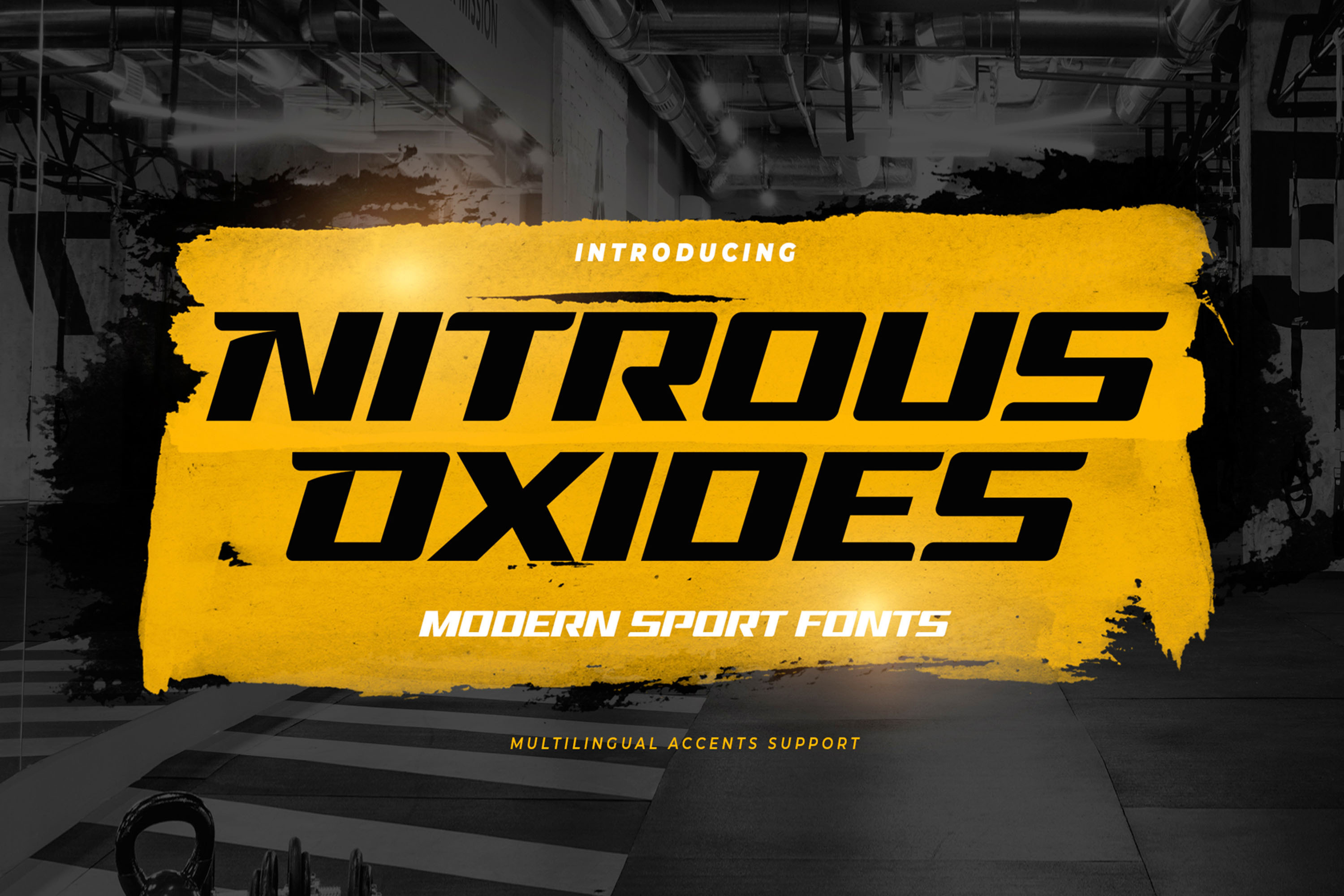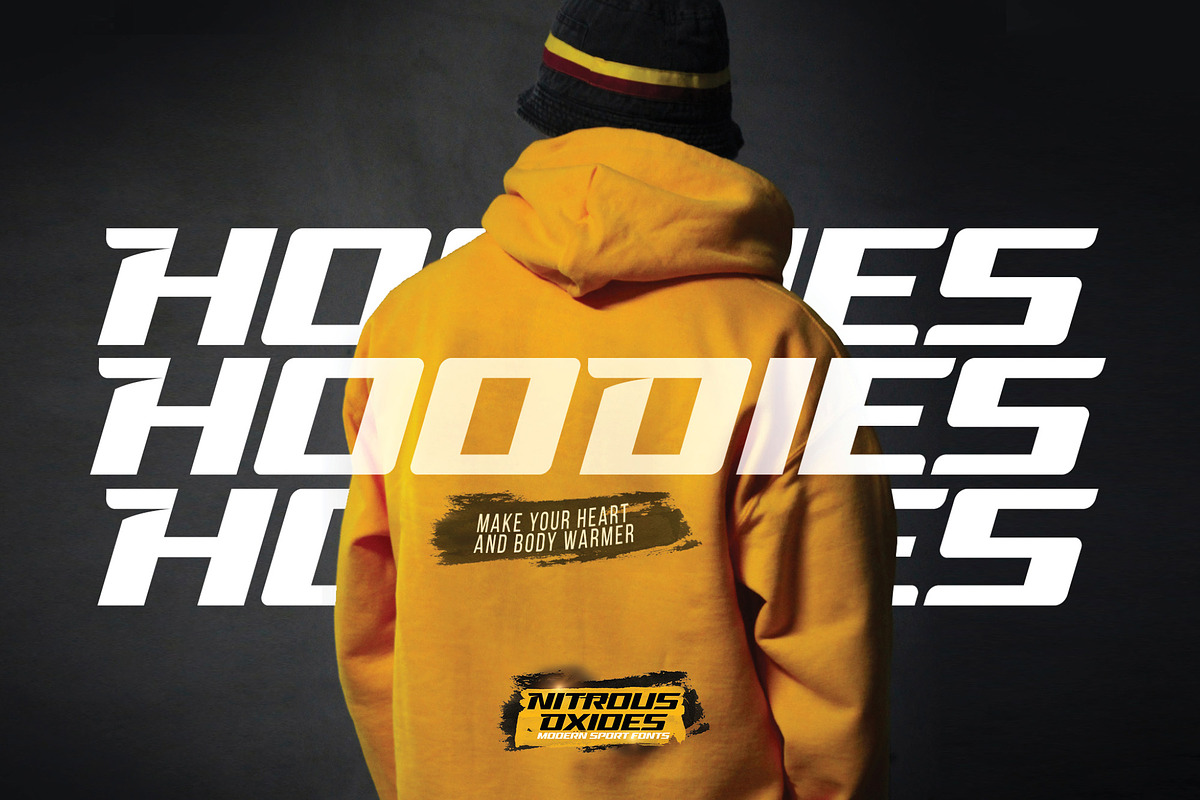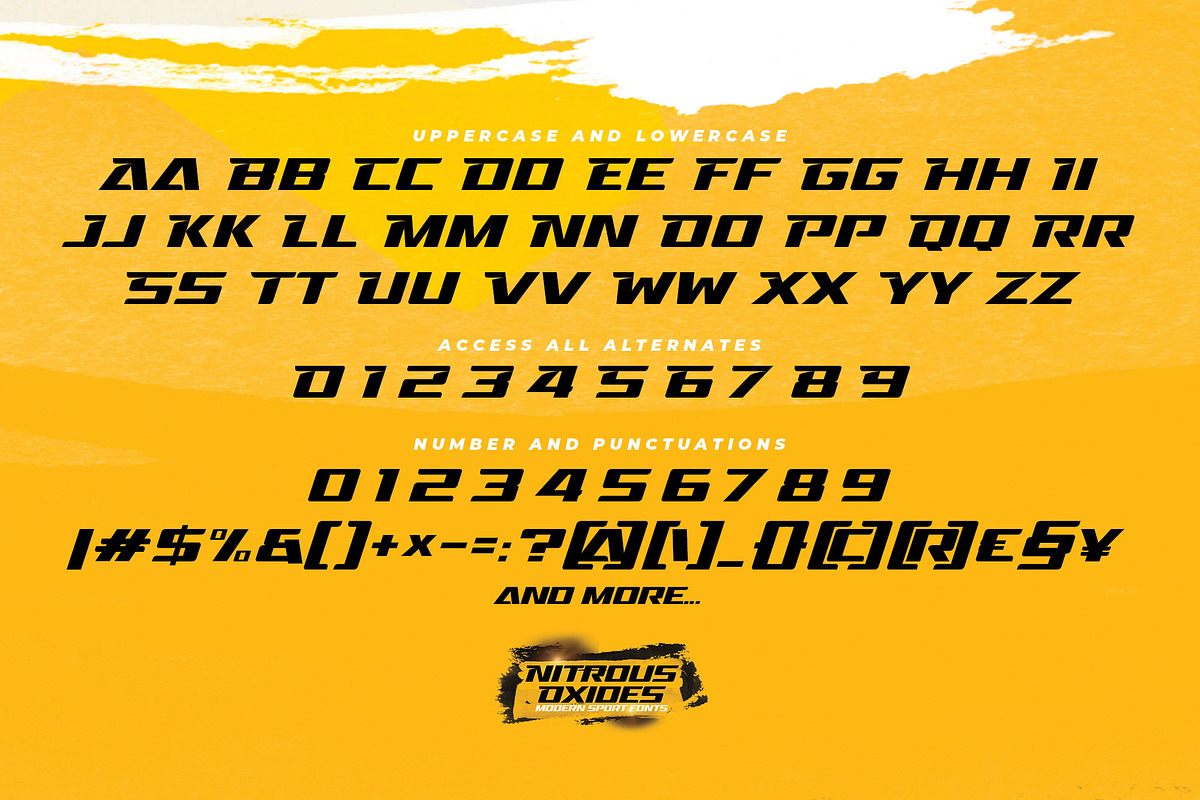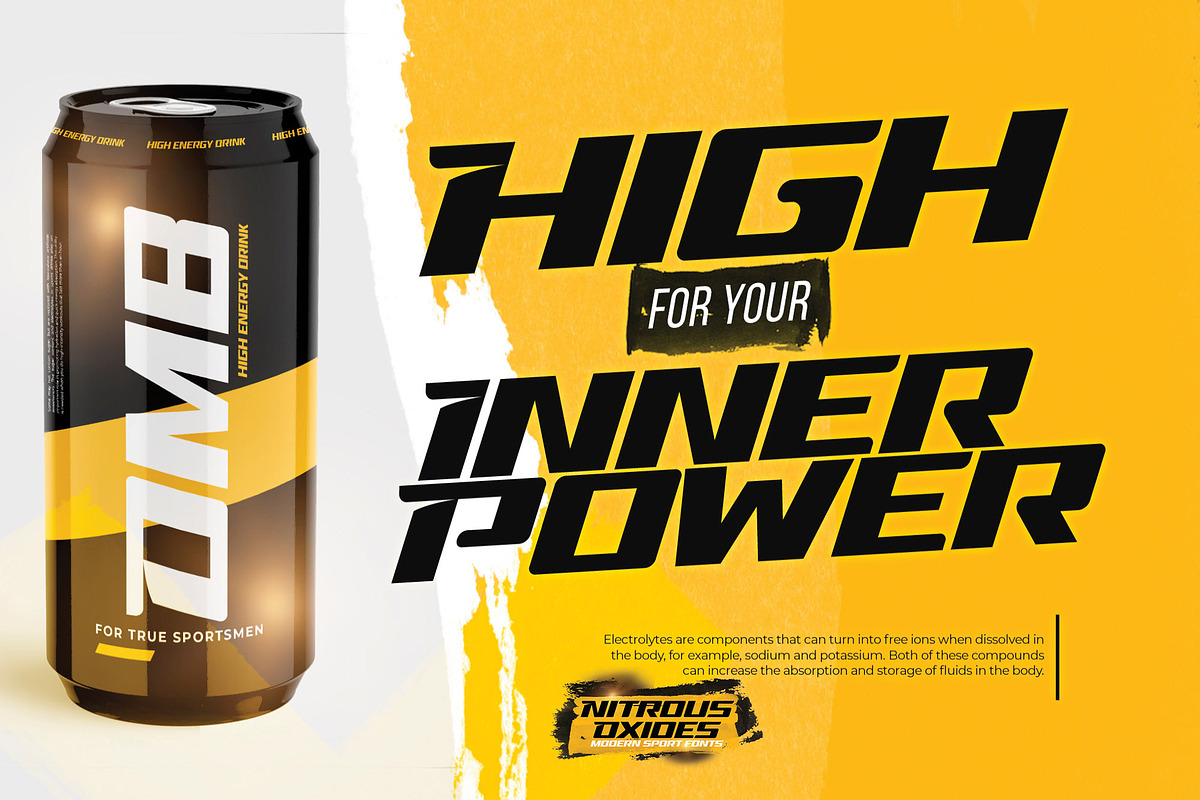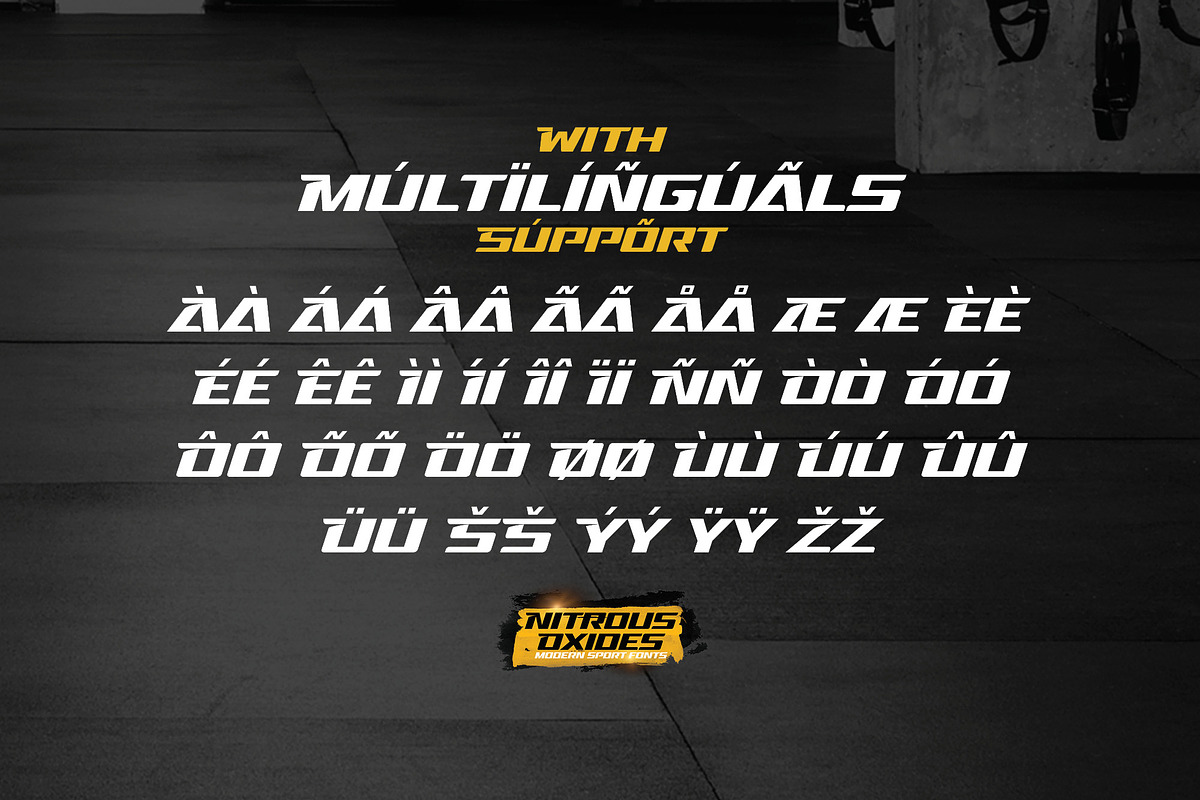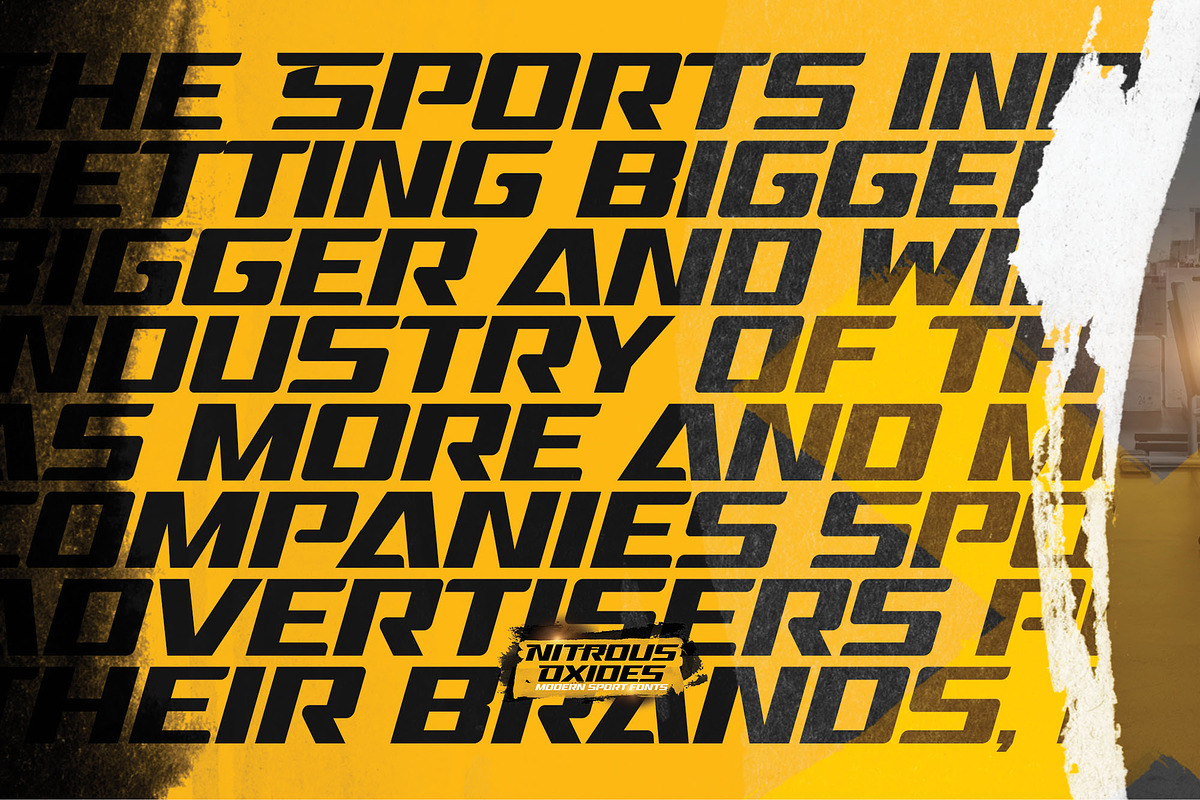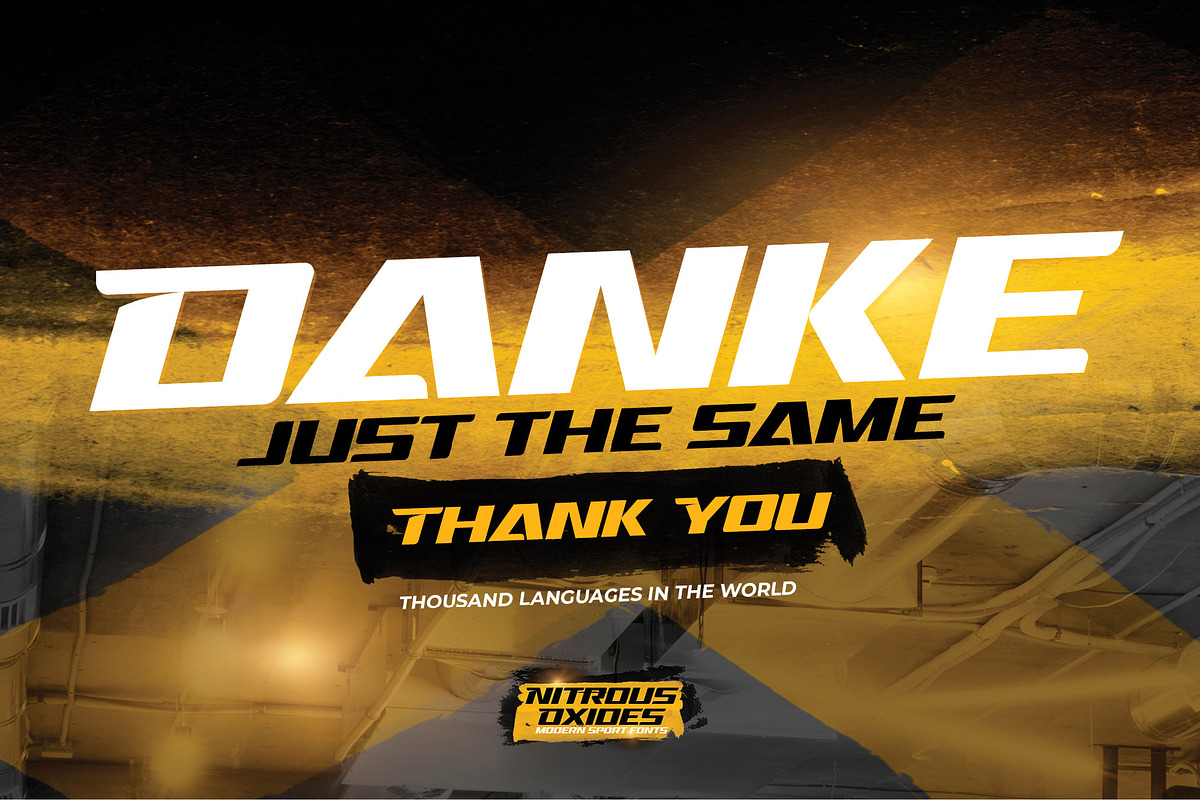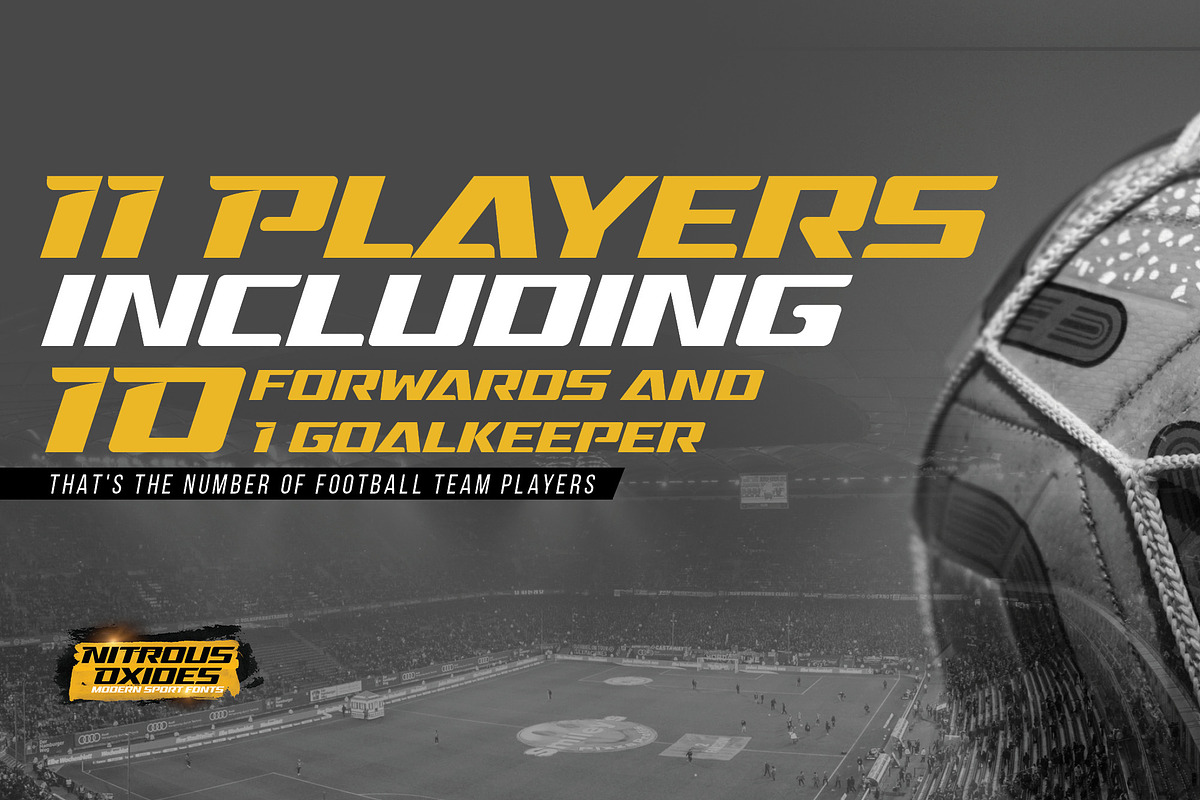
Nitrous Oxides - Modern Sport Fonts
Hello Everyone, introduce our new product Font Nitrous Oxides This Is Modern Sport Fonts.This is a Textured Natural Style and classy style with a clear style and dramatic movement. This font Nitrous Oxides is great for your next creative project such as logos, printed quotes, invitations, cards, product packaging, headers, Logotype, Letterhead, Poster, Design this font is great for your creative projects such as watermark on photography, and perfect for logos & branding, invitation,advertisements,product designs, stationery, wedding designs,label ,product packaging, special events or anything that need handwritting taste. That is has charming, authentic and relaxed characteristic more natural look to your text.